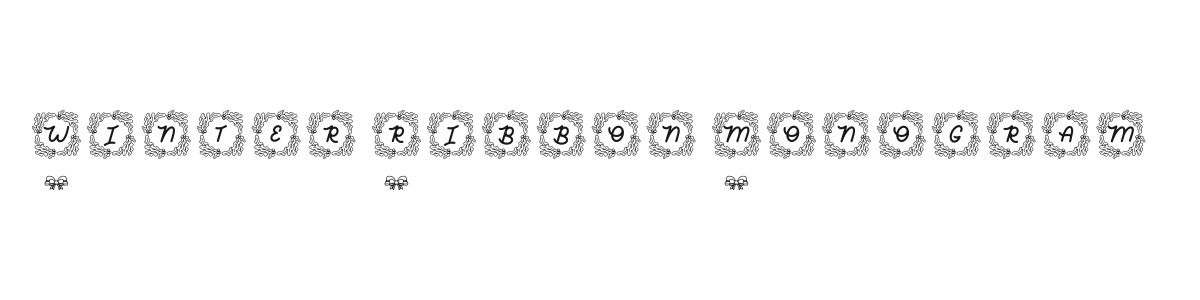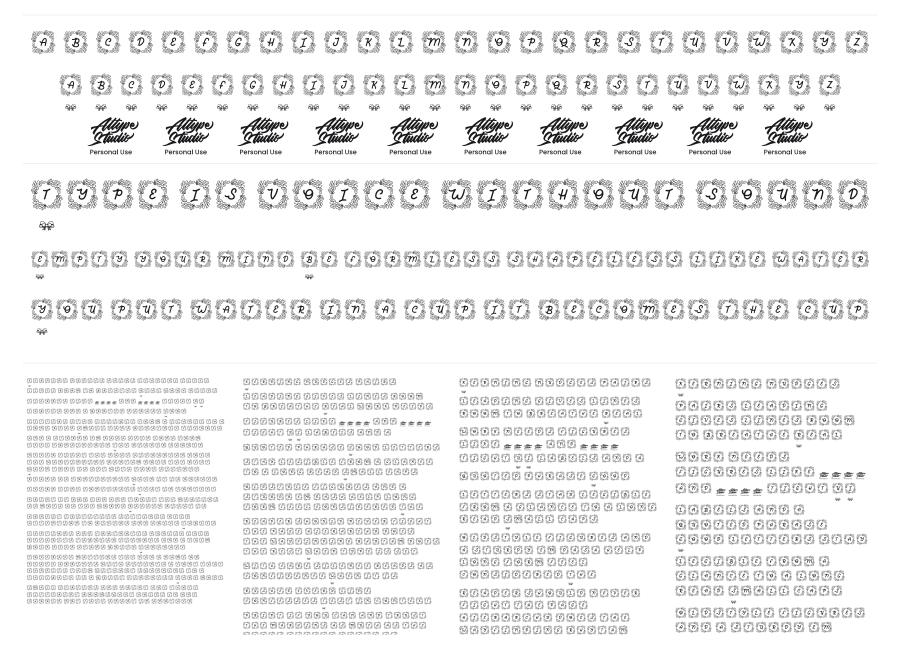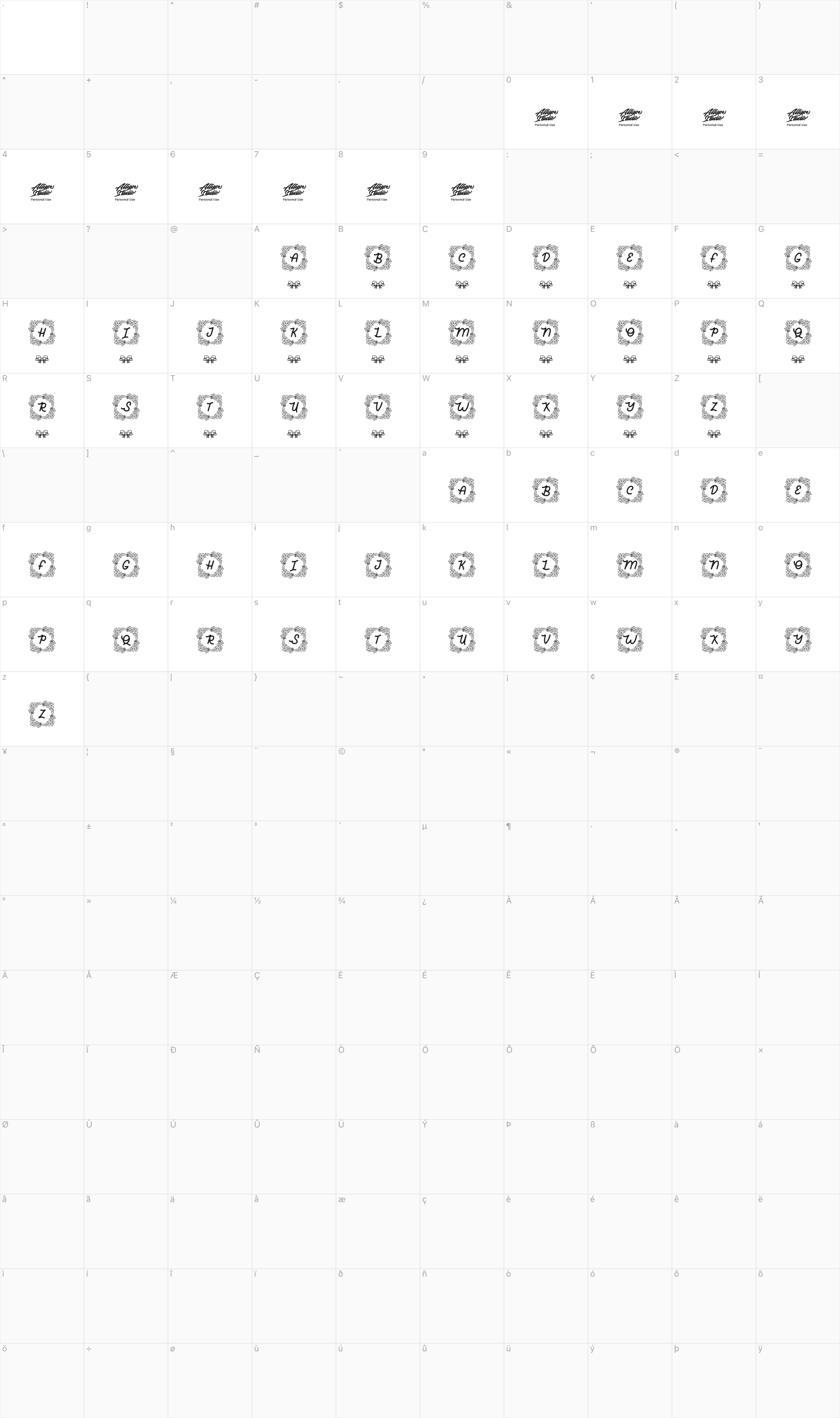
Winter Ribbon Monogram
Winter Ribbon Monogram frames each letter inside an intricate hand-drawn wreath of winter branches, turning the alphabet into a collection of ready-made decorative tiles. The casual script characters inside contrast nicely with the detailed botanical borders. It works naturally for holiday branding, wedding stationery, and any project that calls for a warm, handcrafted feel.